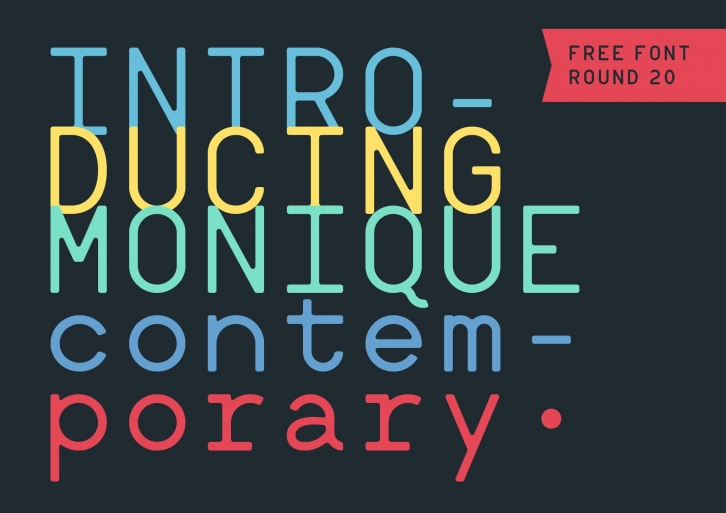
Monique is a Mono Font by Hederae Creative Shop. It is Precise and professional, clear and simple, grid based and modular with some modern influences. The Type is very multifarious and can be used in editorial design, at tables, reading texts or headlines.
There are 3 versions available:
• Monique (Regular & Bold + Obliques)
• Monique Round 20 (Regular & Bold + Obliques)
• Monique Round 40 (Regular & Bold + Obliques)
Special characteristics: ↳ Optimized for readability ↳ Language Support ↳ Grid based and modular ↳ Great as body text or Headline ↳ 300 glyphs per cut ↳ Discretionary ligatures